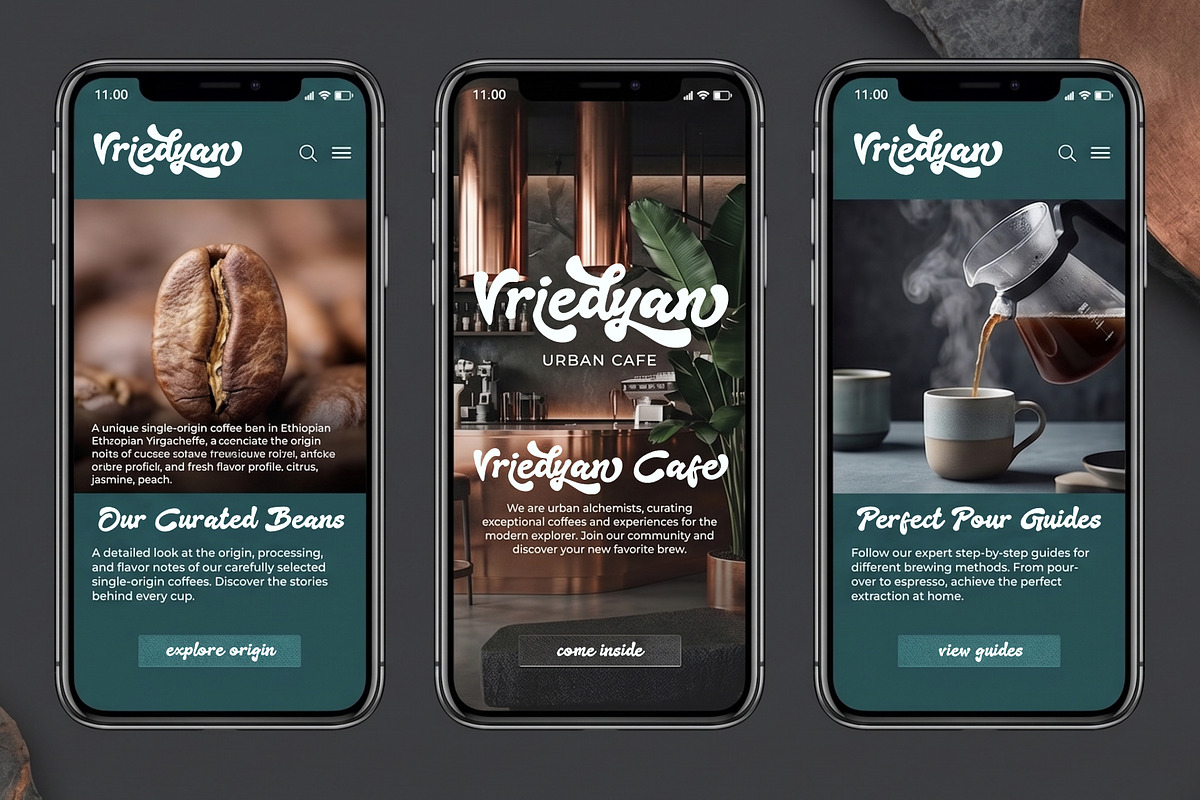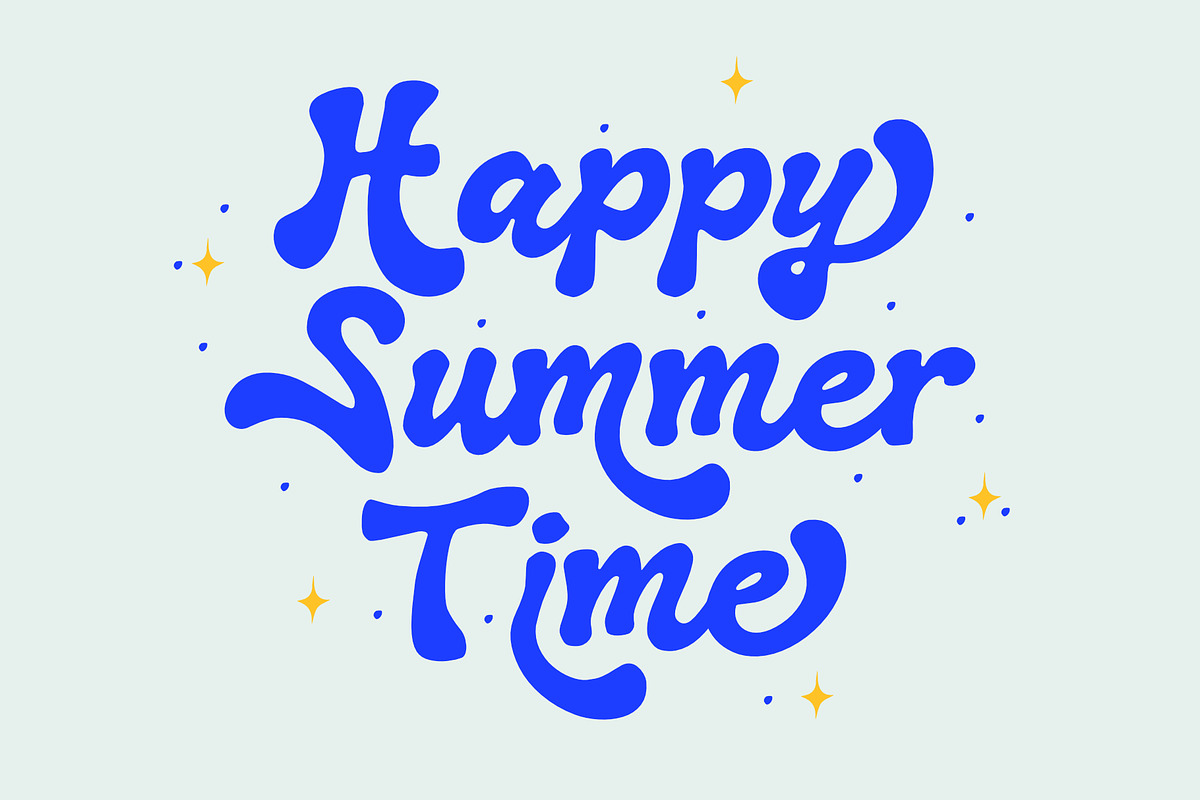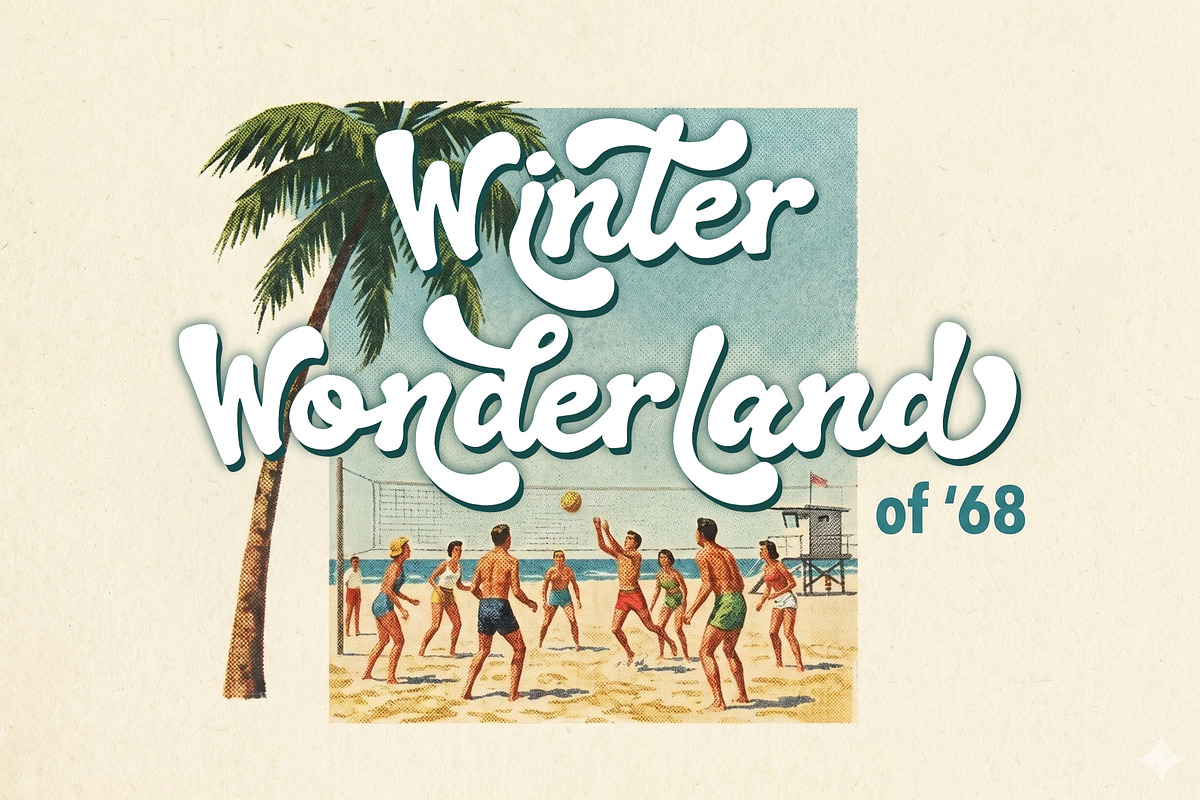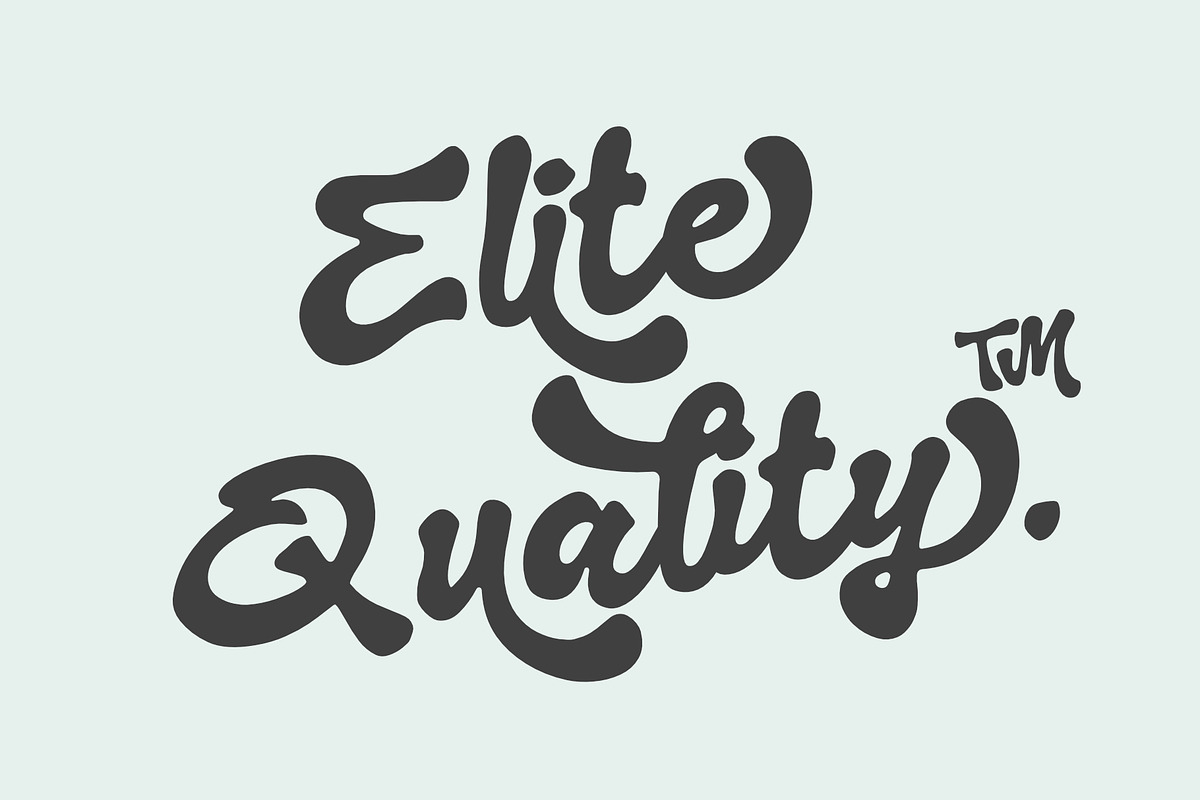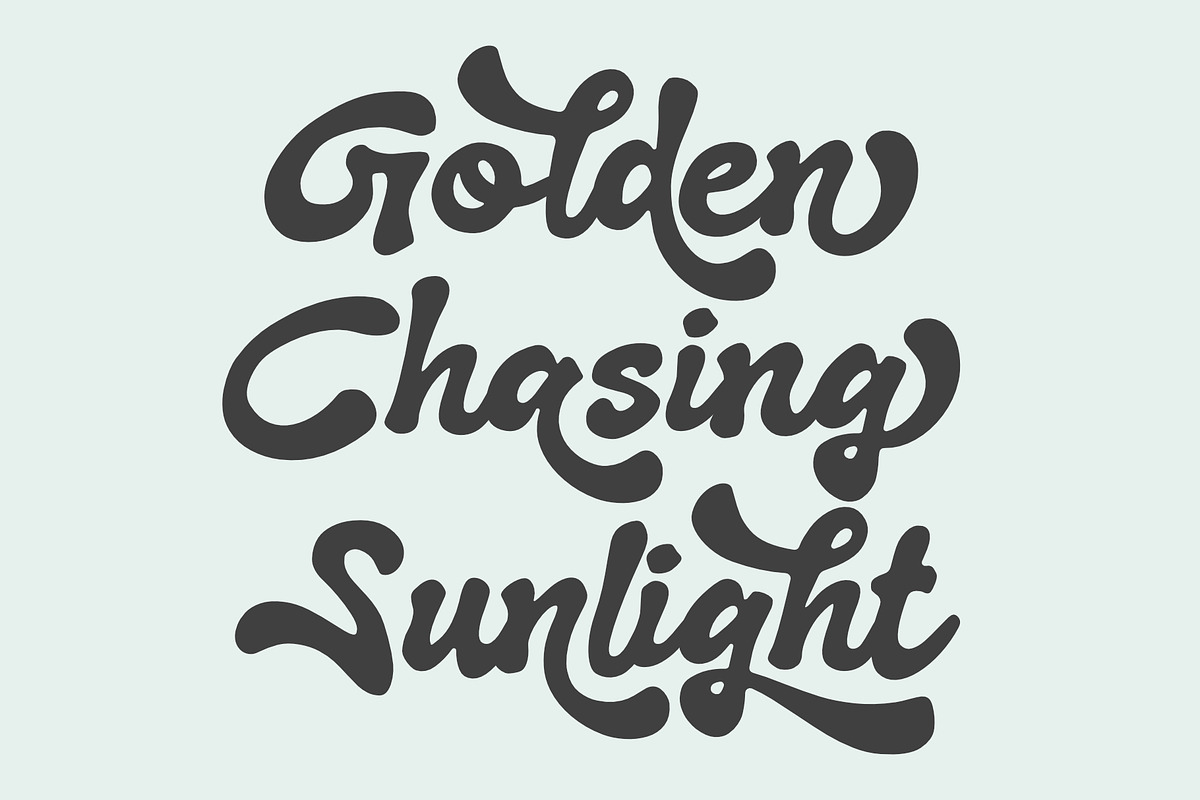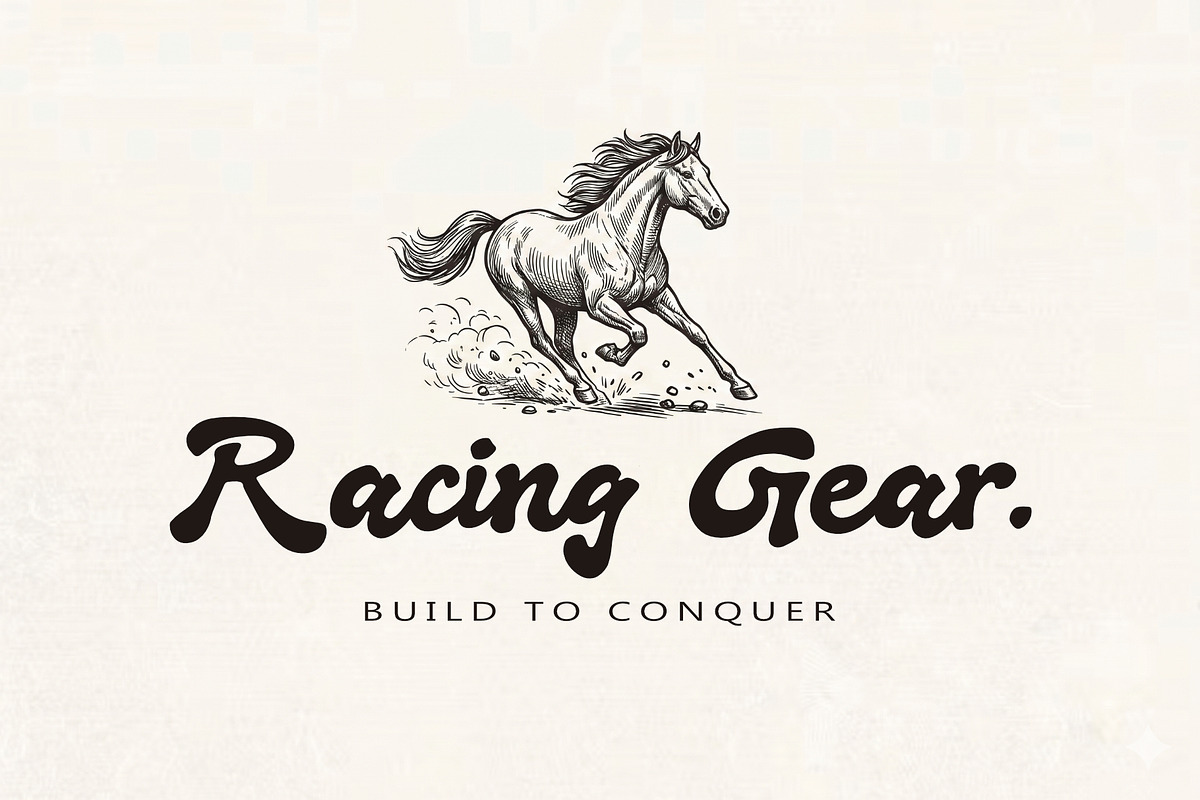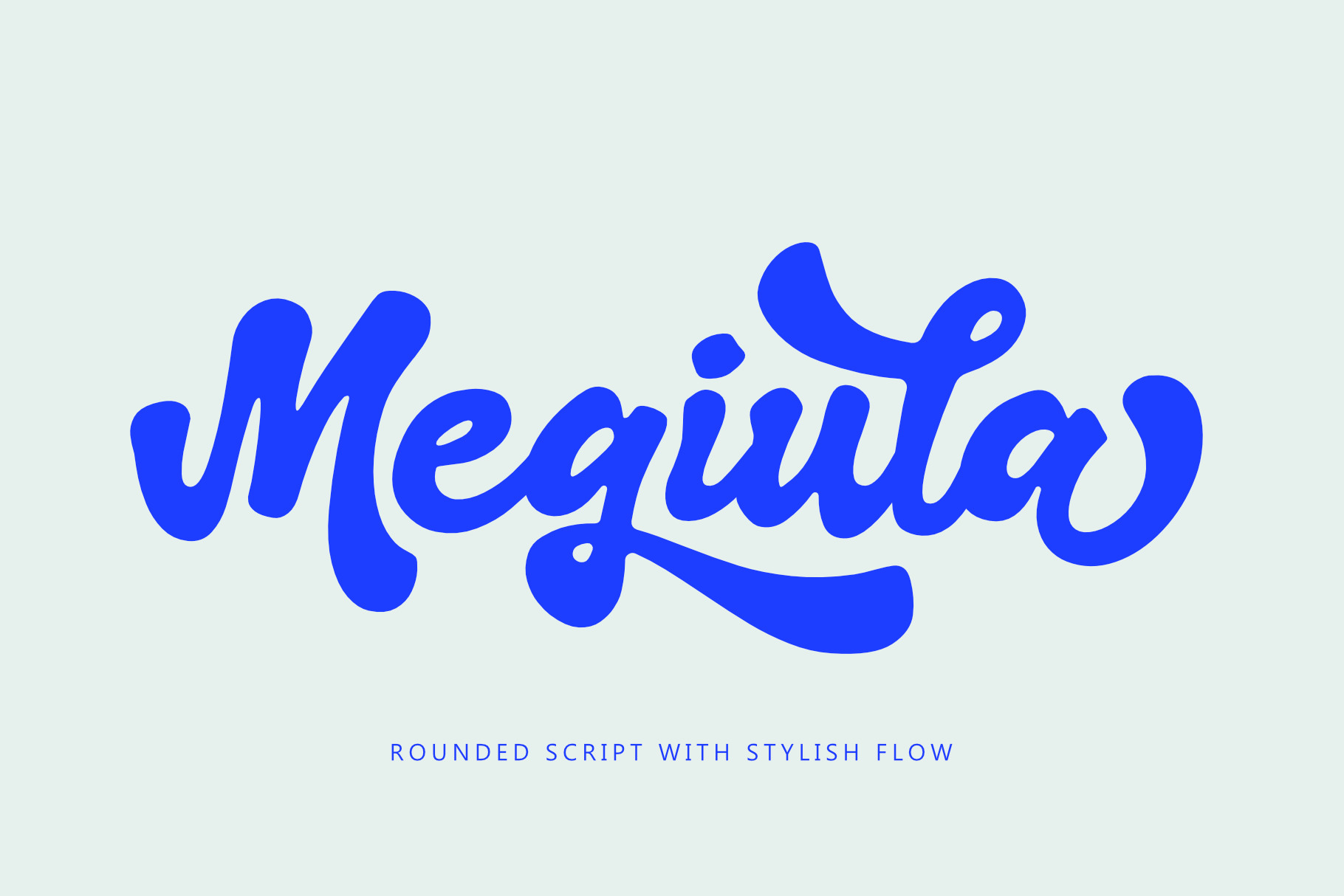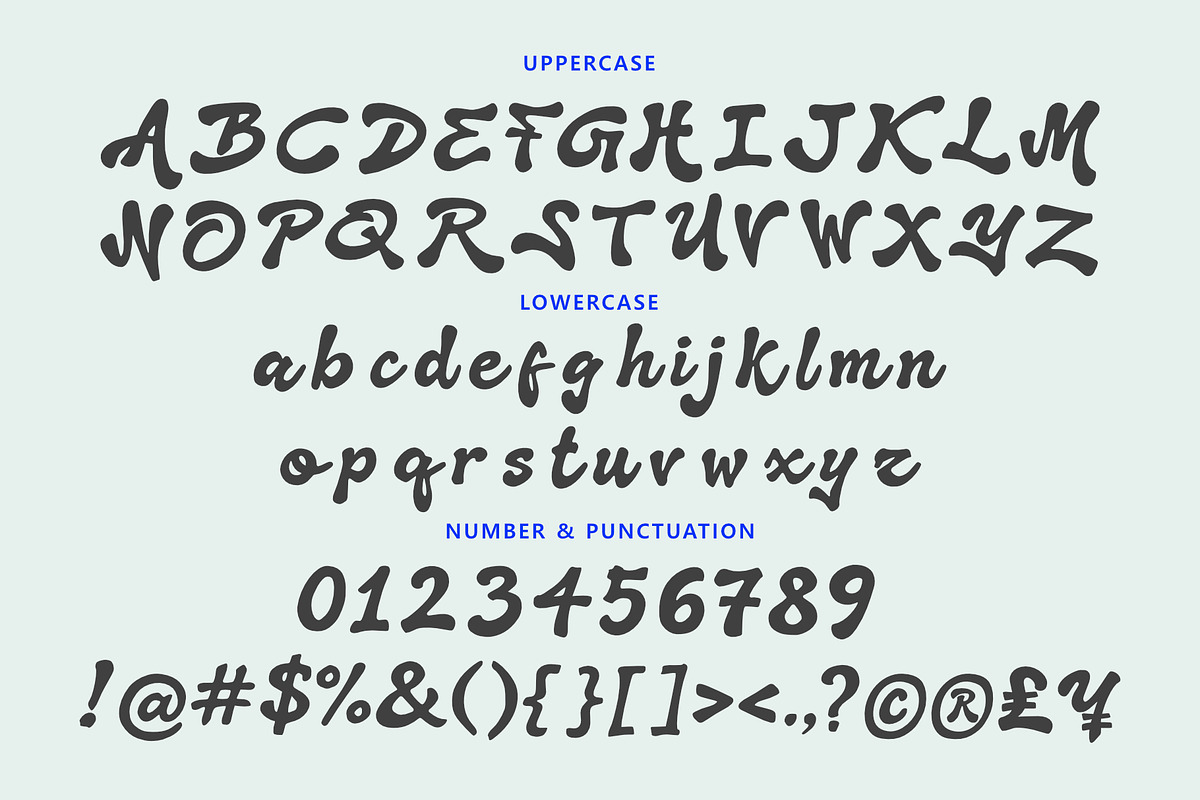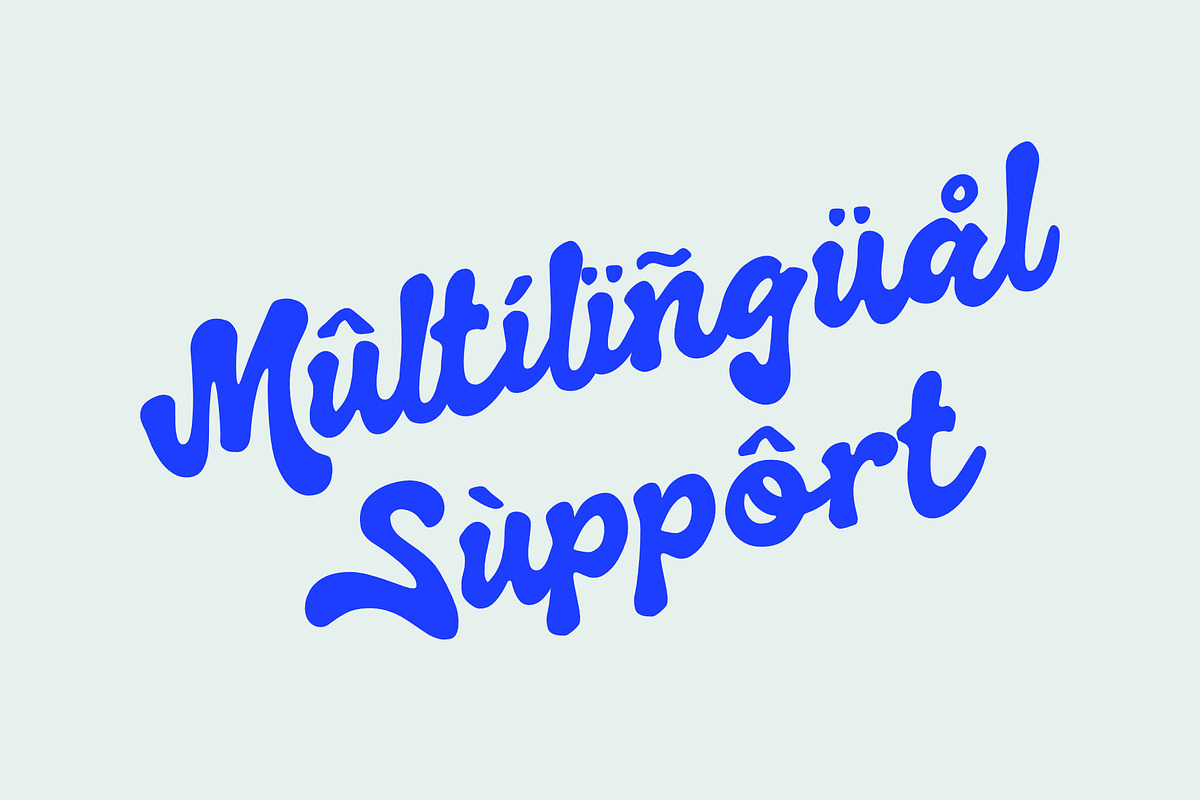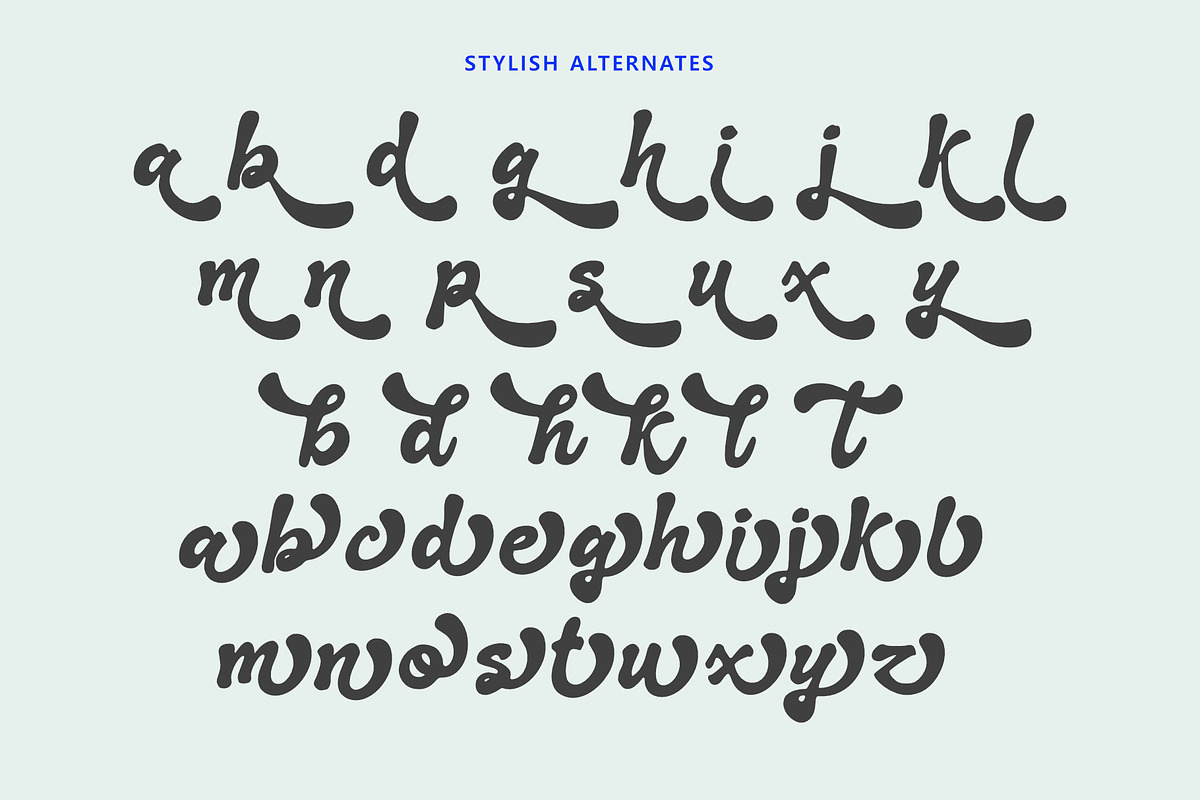
Megiula - Rounded Script Font
Megiula – Rounded Script With Stylish Flow
Megiula is a smooth and modern script font designed to bring elegance and personality into your creative projects. With its rounded letterforms, flowing curves, and natural handwritten feel, Megiula delivers a perfect balance between playful charm and professional style.
Carefully crafted with attention to detail, this font features beautiful connections and a seamless flow, making it ideal for eye-catching designs that require a soft yet confident touch.
Logo design
Branding & identity
Packaging
Wedding invitations
Quotes & typography
Megiula is your go-to script font for creating designs that feel warm, stylish, and modern.